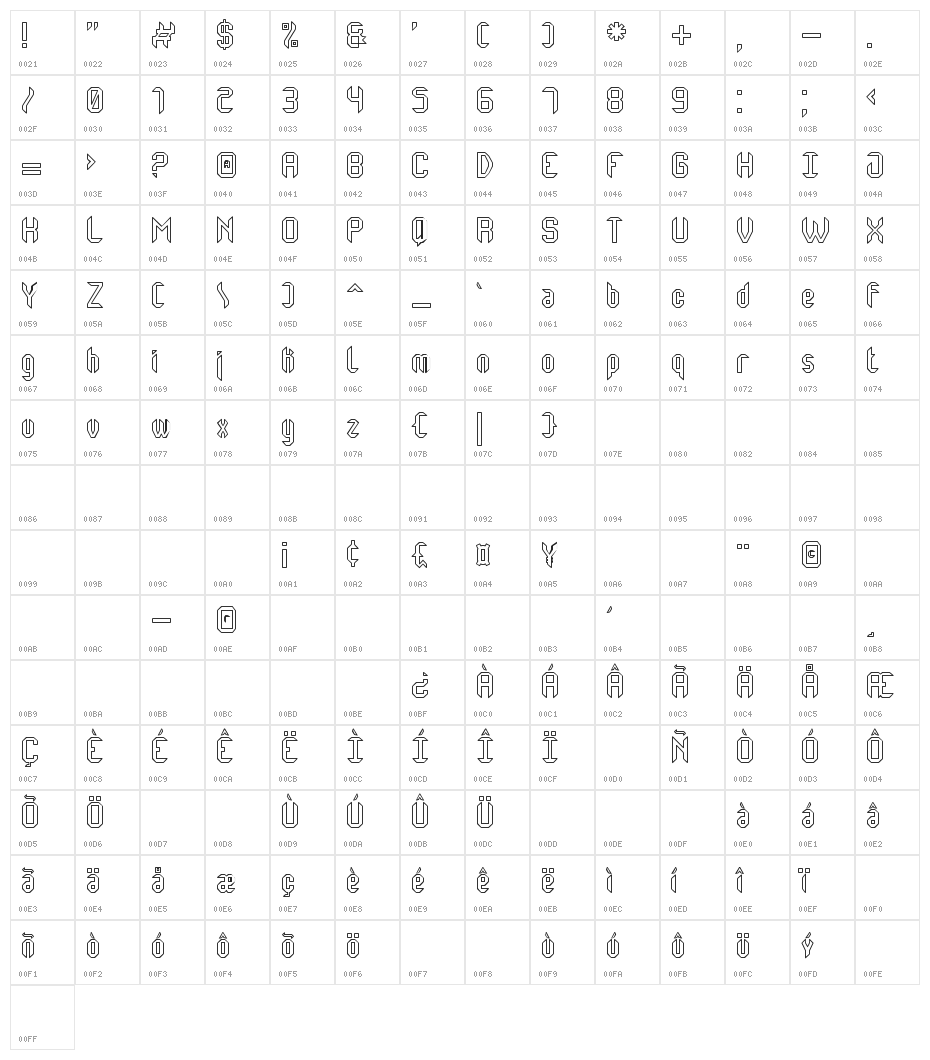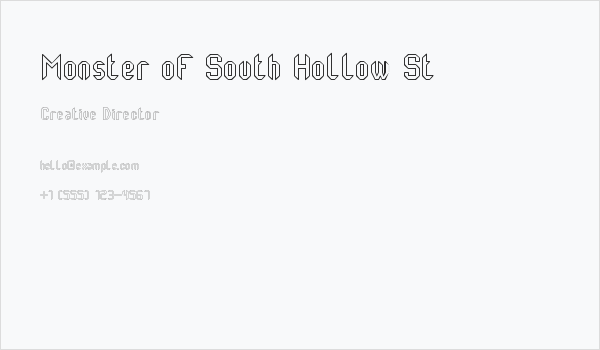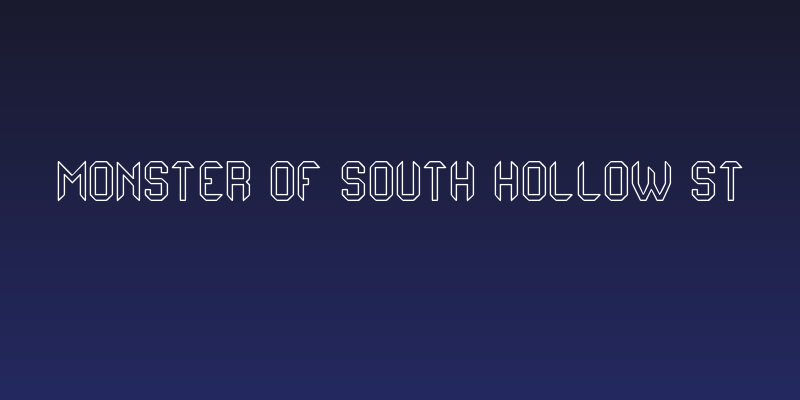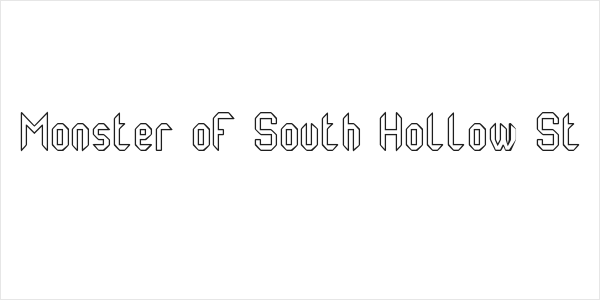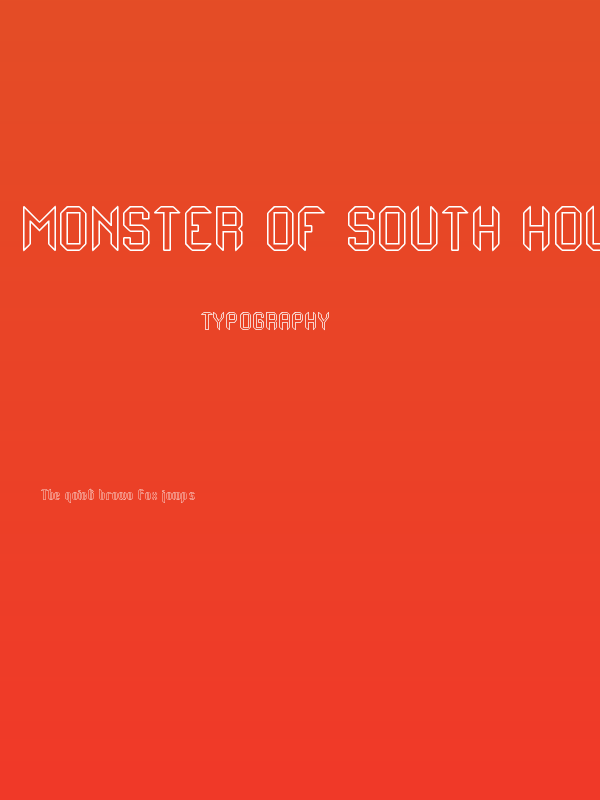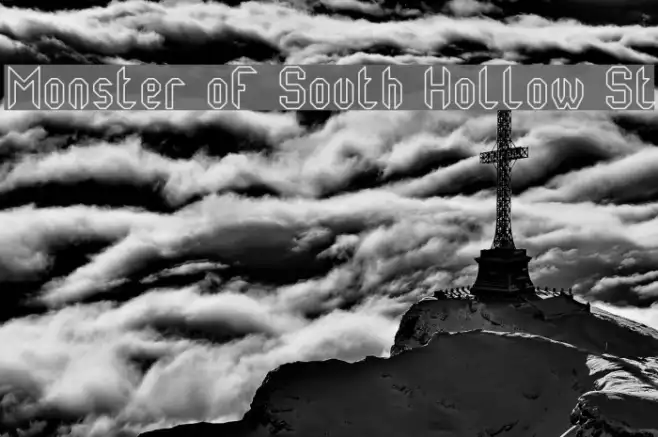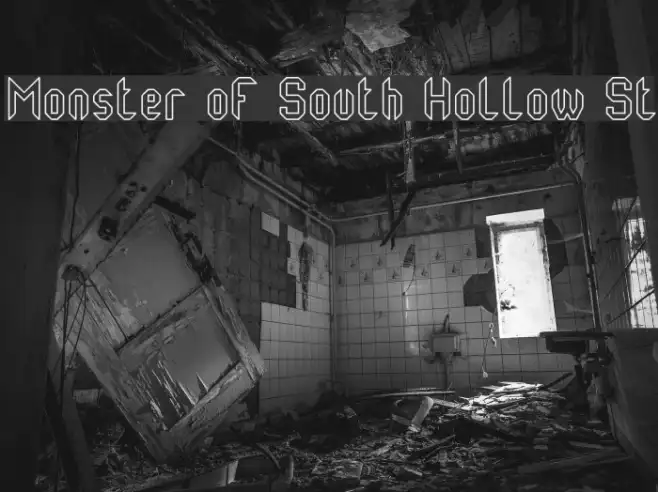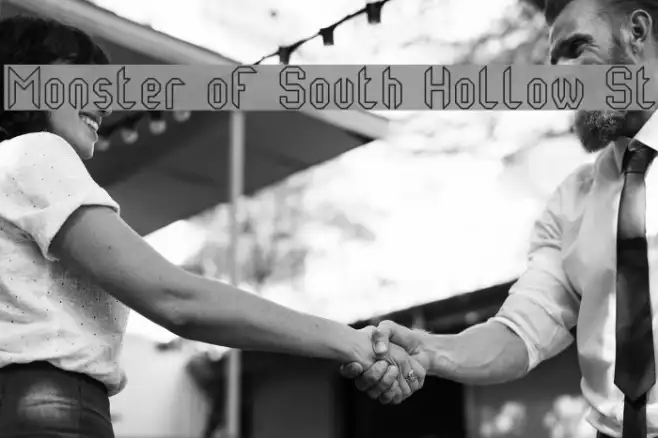
Monster oF South Hollow St Font
Monster oF South Hollow St Description
This font features a bold, geometric design with sharp angles and a futuristic aesthetic. Each character is outlined, giving it a three-dimensional appearance. The uppercase and lowercase letters maintain a consistent style, with angular cuts and a uniform stroke width. Numbers and special characters follow the same design principles, ensuring a cohesive look across all elements. The font's unique structure makes it stand out, ideal for projects that require a modern and edgy feel.
| Overall Style | Futuristic, Modern |
| Proposed Projects | Ideal for sci-fi themed posters, video game titles, branding for tech companies, and modern art installations. |